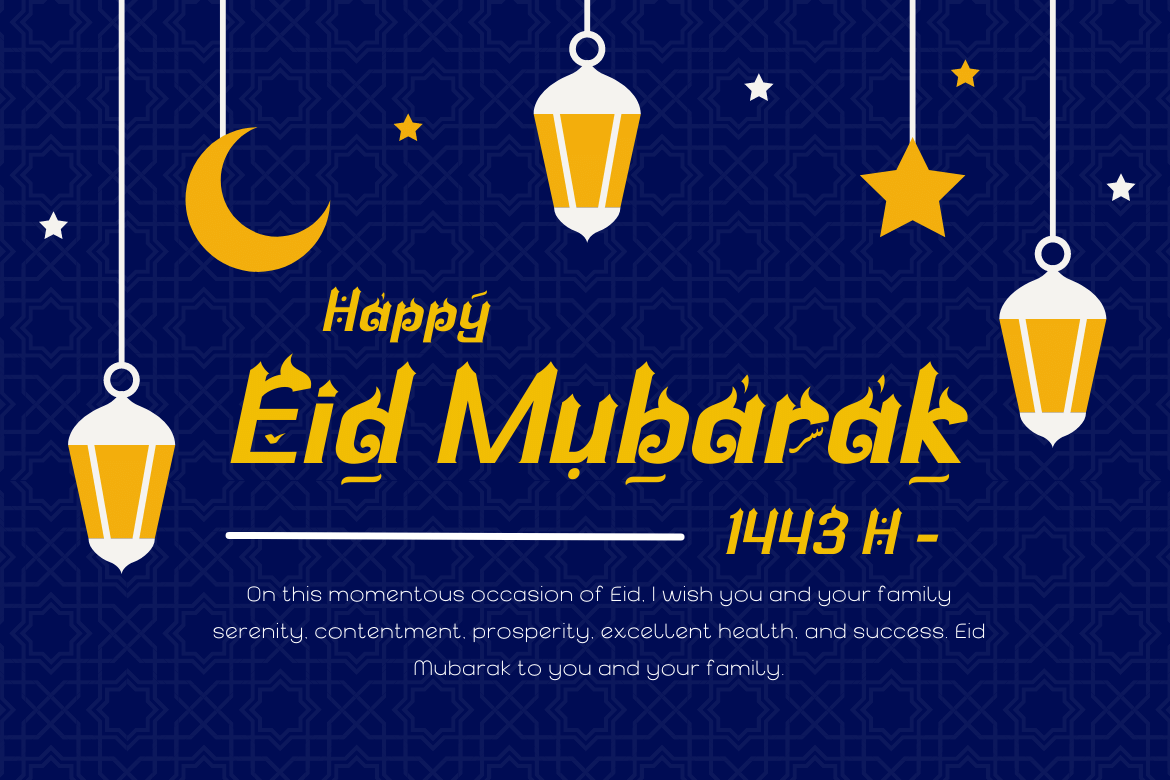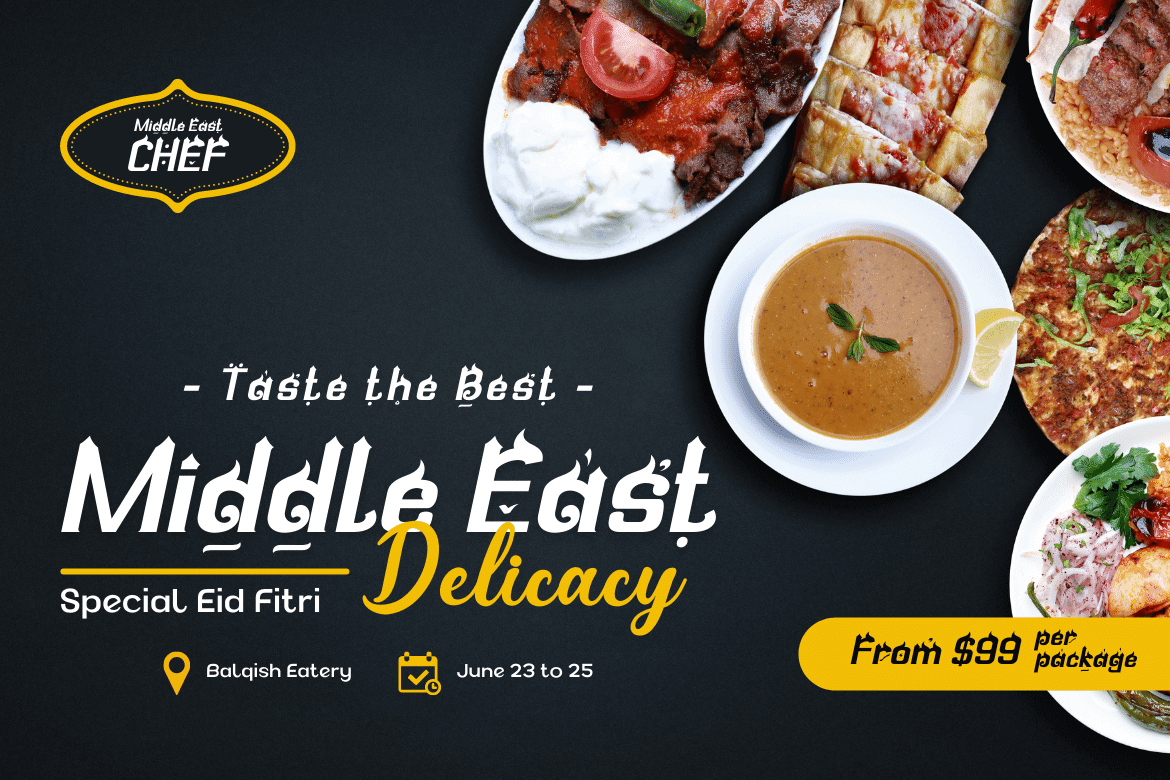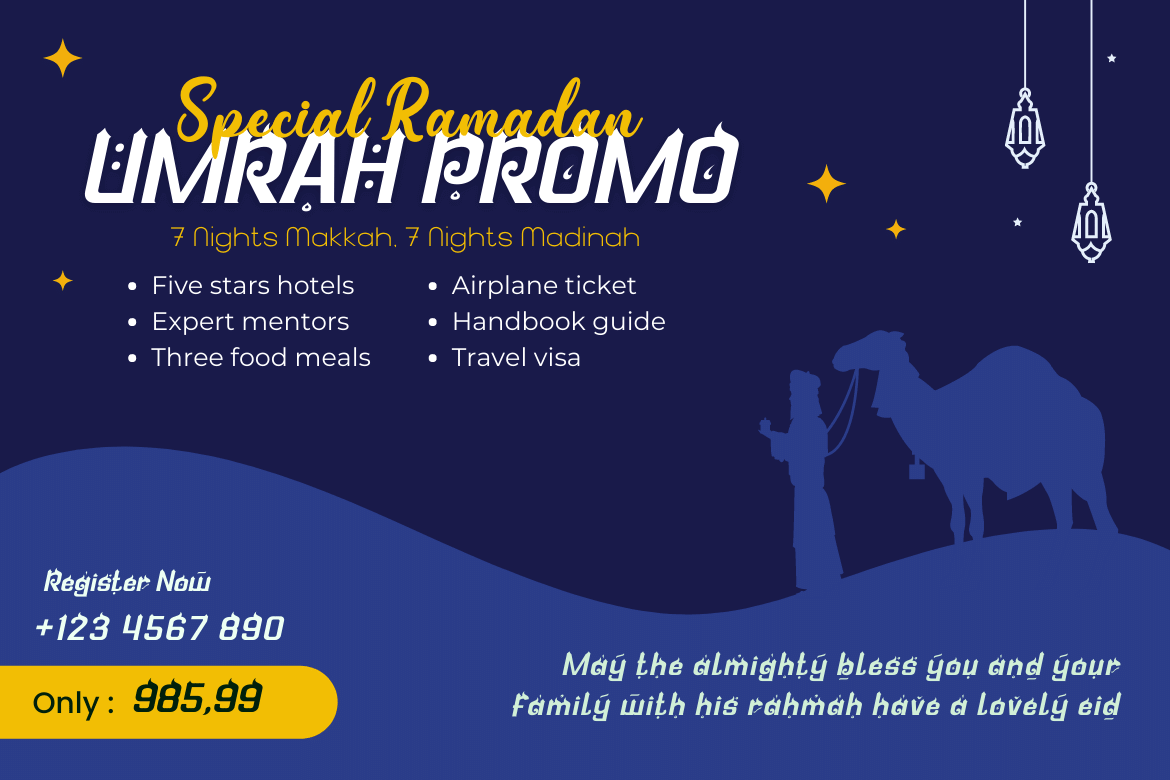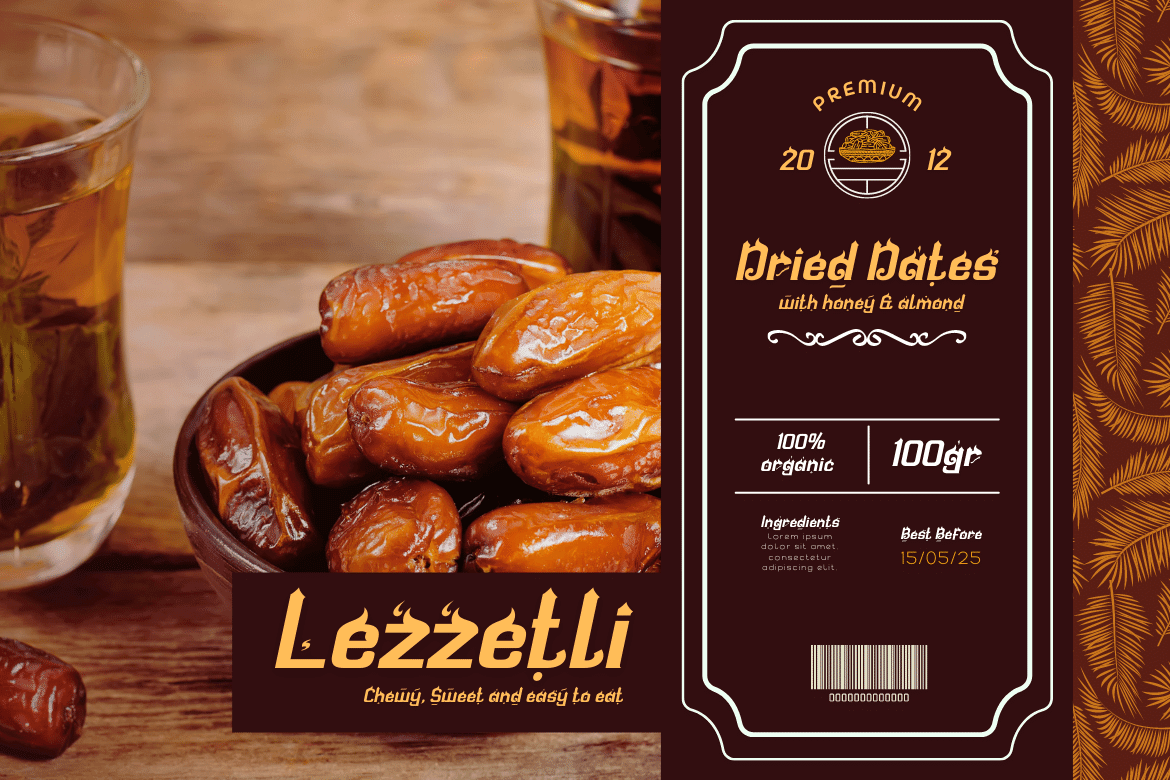
Qosydu Display Font
Create an elegant and exotic feel with our Arabic-style font, Qosydu. Bold fonts and extended spacing give your designs a middle eastern feel, make all your projects elegant with this font. Qosydu is the perfect choice for Arabic-themed packaging, advertising, or invitations.